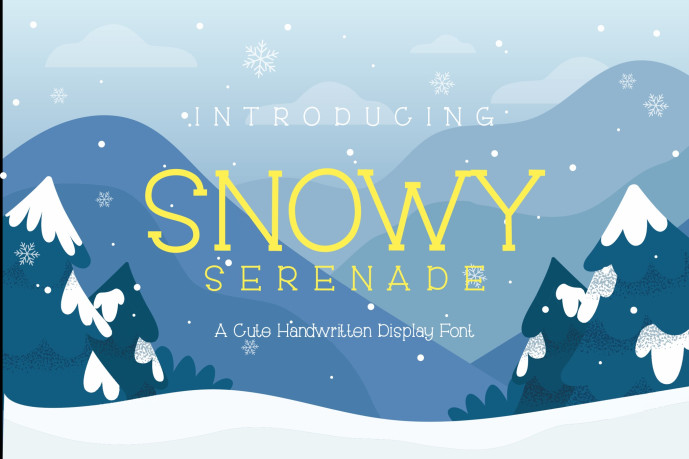
Snowy Serenade Font
Snowy Serenade Font is a charming winter-inspired display font designed to bring warmth, elegance, and seasonal magic to your creative projects. Featuring stylish letterforms with a modern decorative touch, this font creates a cozy and inviting atmosphere that perfectly captures the beauty of winter. It is highly suitable for blog designs, modern branding, website headers, invitation cards, holiday-themed graphics, social media content, and various creative presentations. With its unique personality and eye-catching appearance, Snowy Serenade adds a delightful seasonal flair to any design. Download and enjoy creating stunning works with this beautiful font.